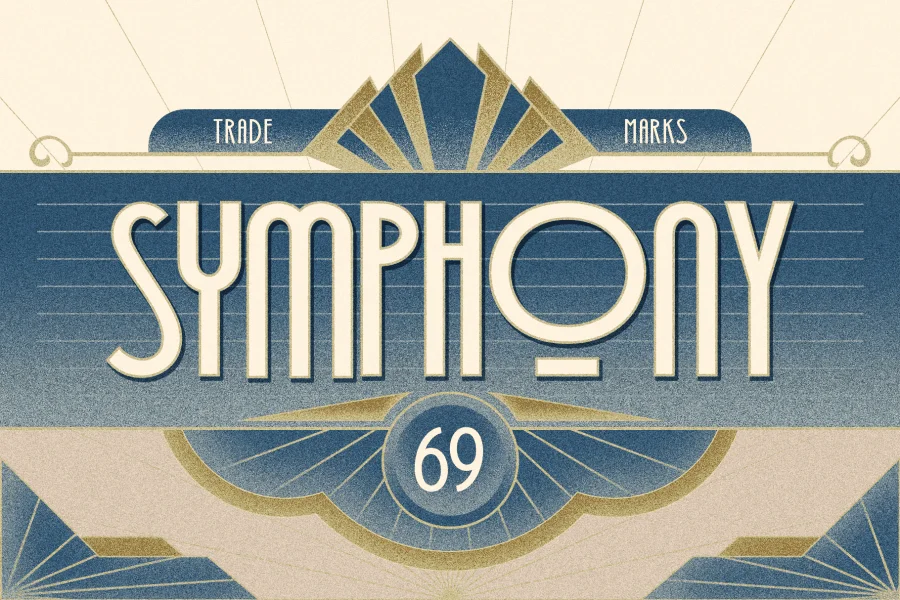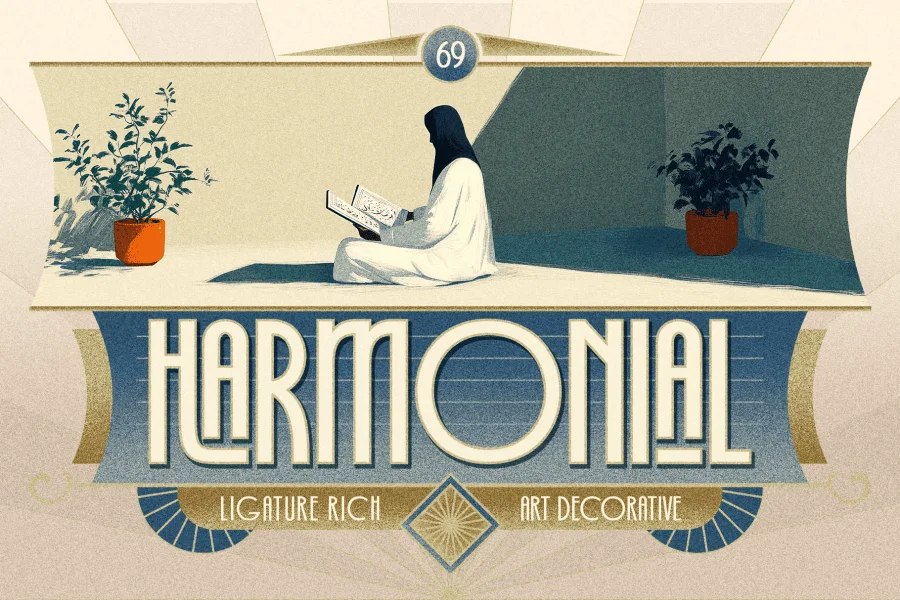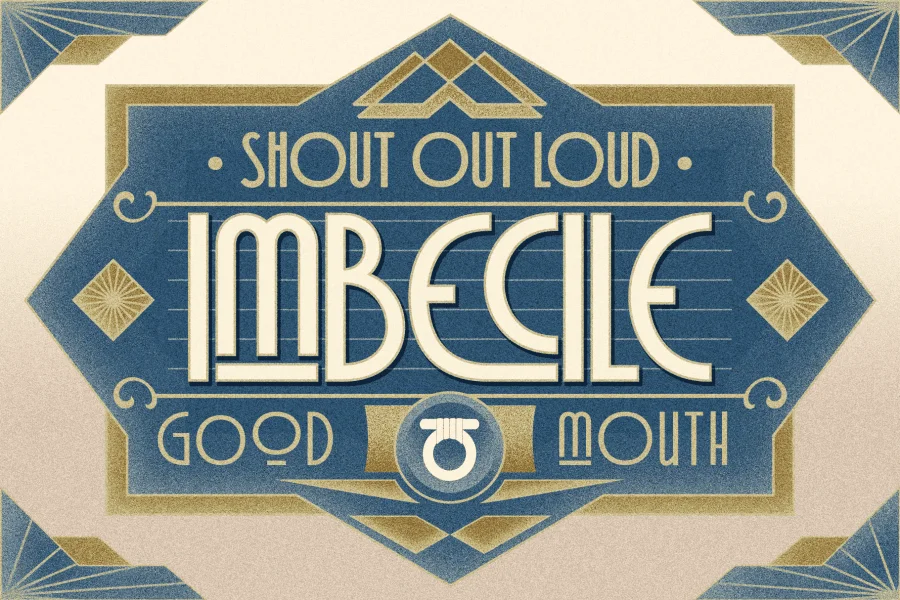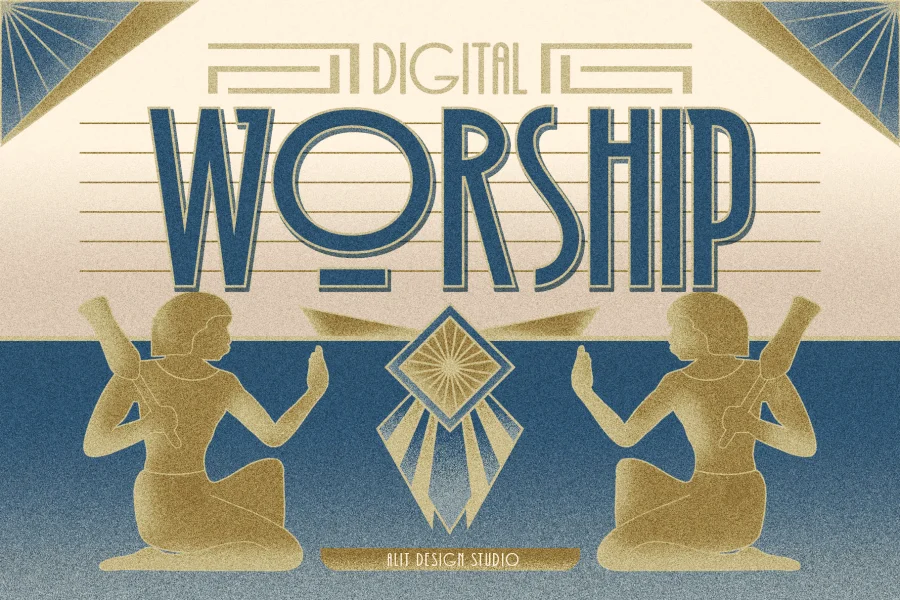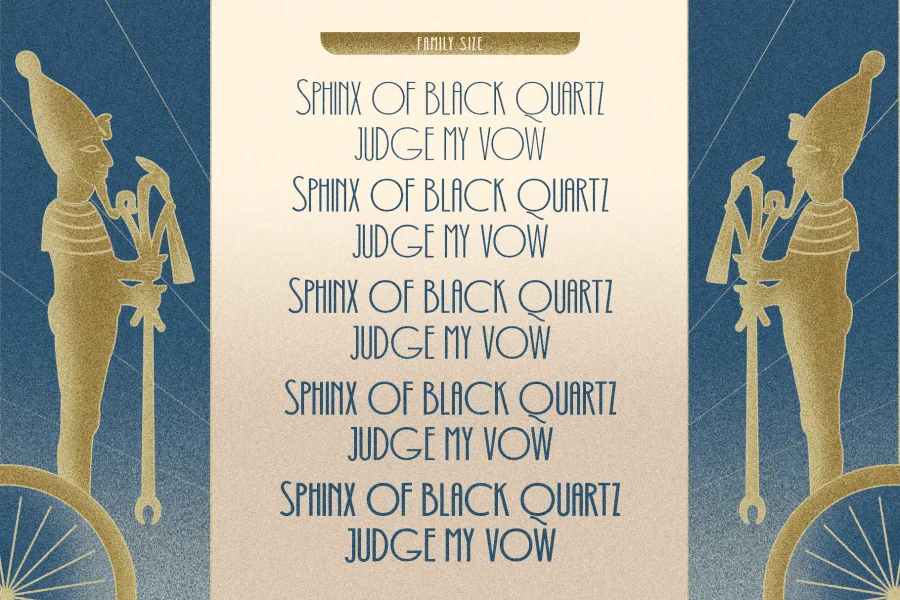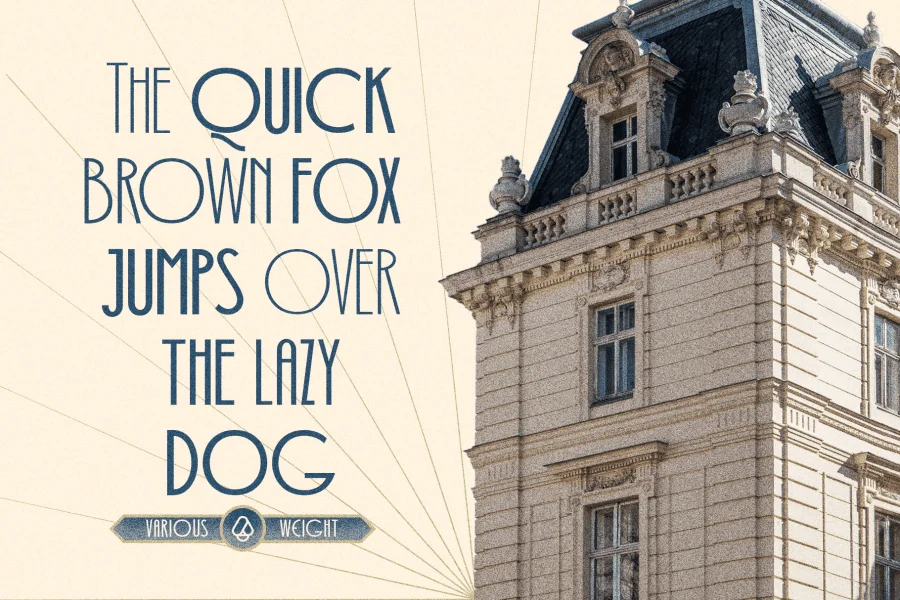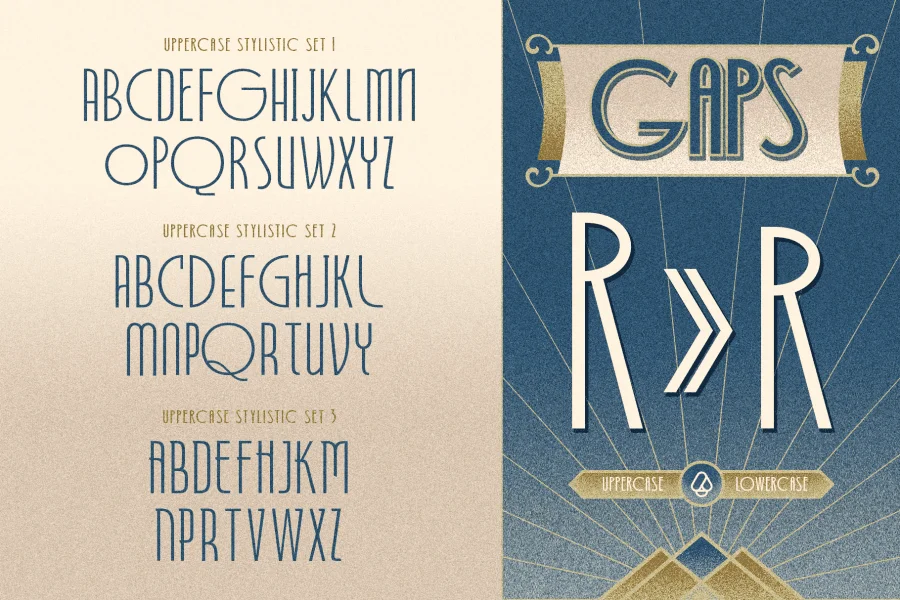
Decondol Art Deco Typeface
Elevate your designs with Decondol, a sophisticated Art Deco typeface that seamlessly blends modern elegance with timeless design. Inspired by the geometric symmetry and bold aesthetics of the Art Deco era, this typeface redefines contemporary style with its refined details and versatile character.